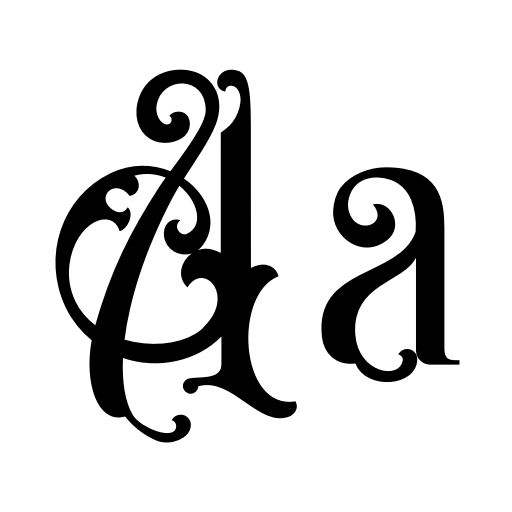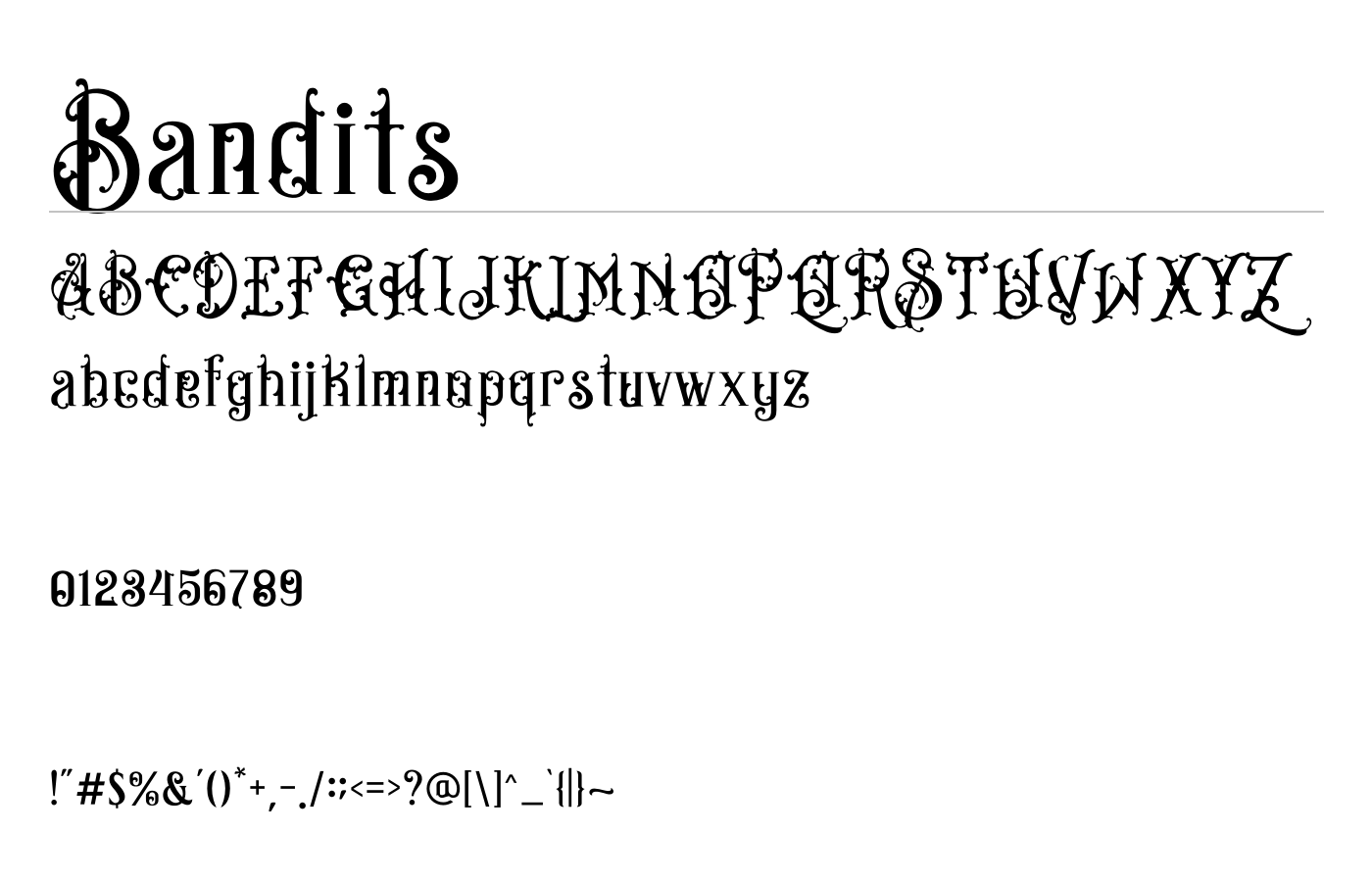
Bandits is a decorative serif font with a vintage, ornate style, featuring intricate, playful swirls and flourishes primarily on its uppercase characters. Its narrow width, medium weight, and moderate contrast give it a distinctive old-fashioned yet lively personality, ideal for projects needing a touch of historical charm and elegance. This font works best for eye-catching headlines, logos, and posters where its unique character can shine without losing readability.
Bandits Font
About Bandits Font
| Font family | Bandits Font |
| Designer | Burhan Afif |